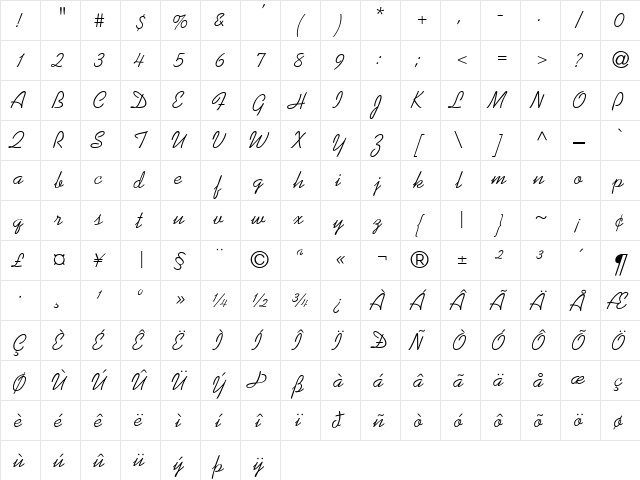
Koala Regular
Design Context for Koala Typeface
Koala takes a measured approach to typography — its balanced proportions and neutral character make it a reliable workhorse for both digital and print work.